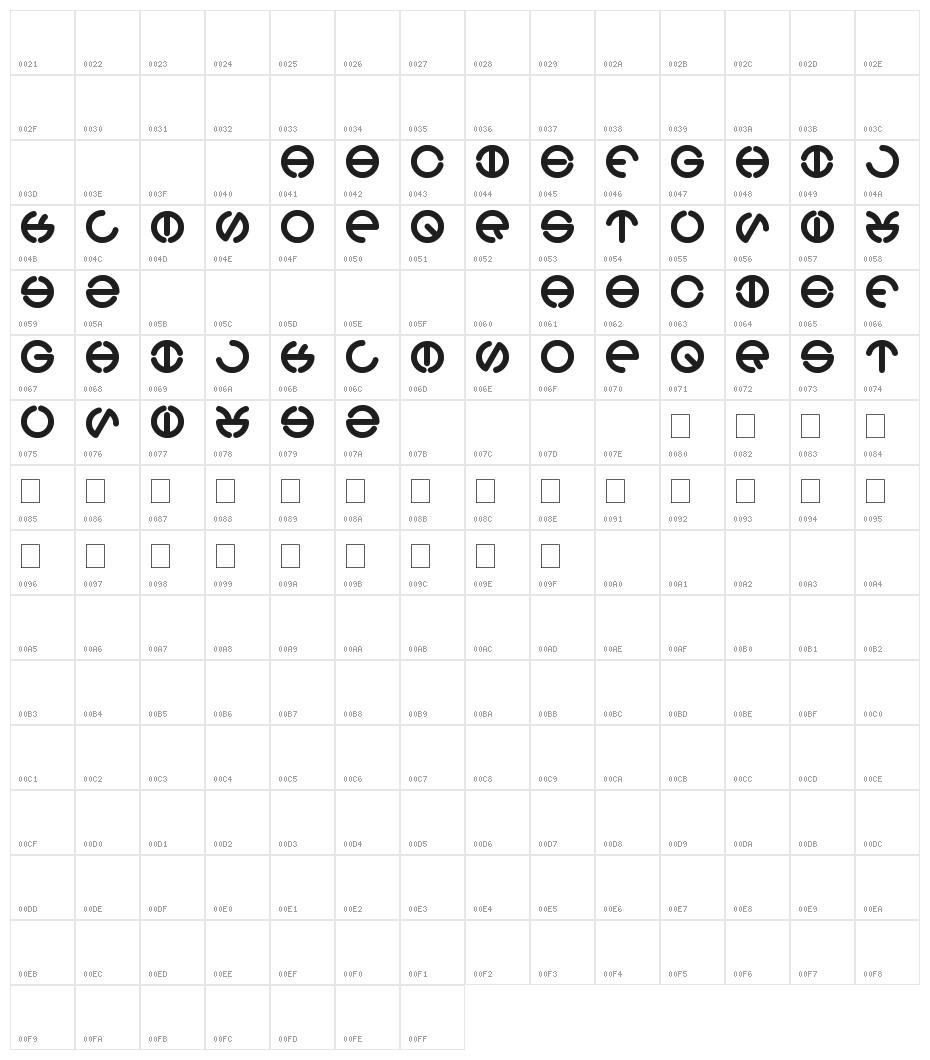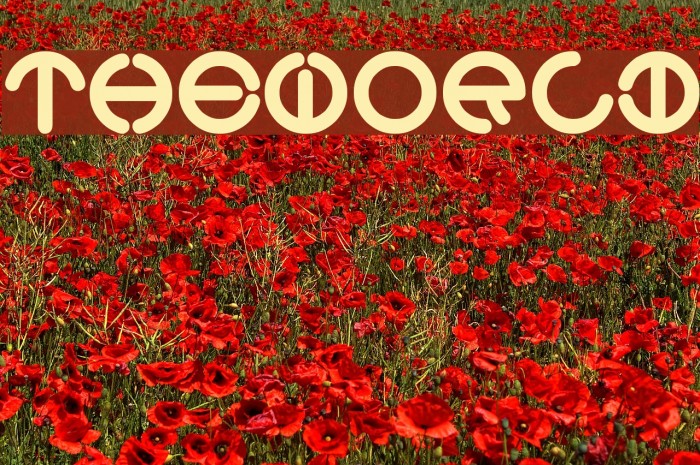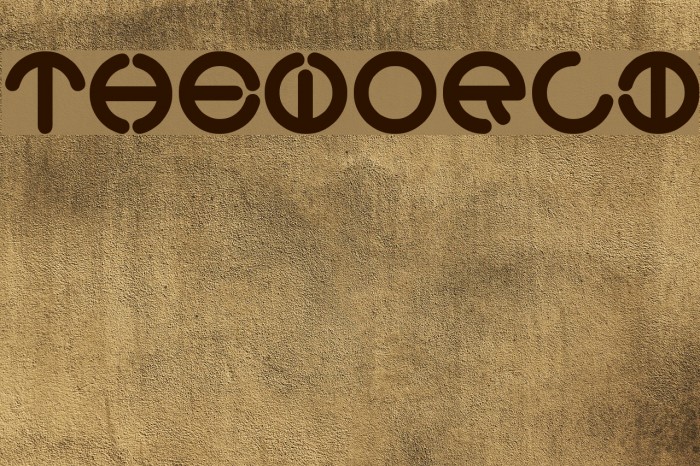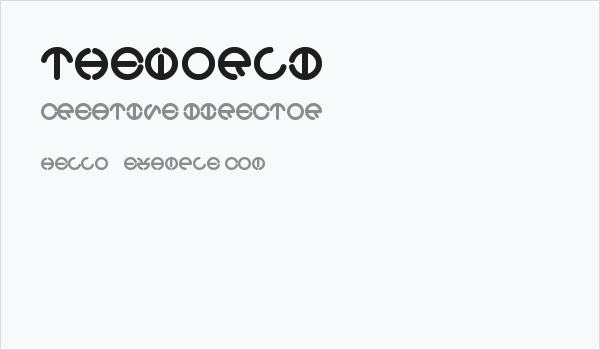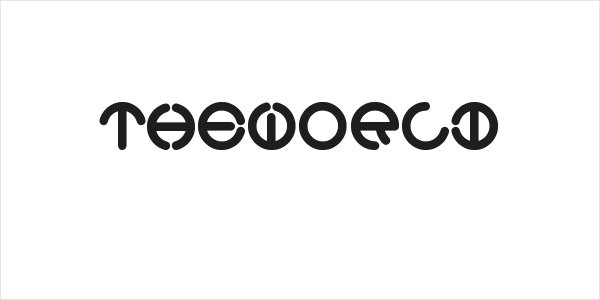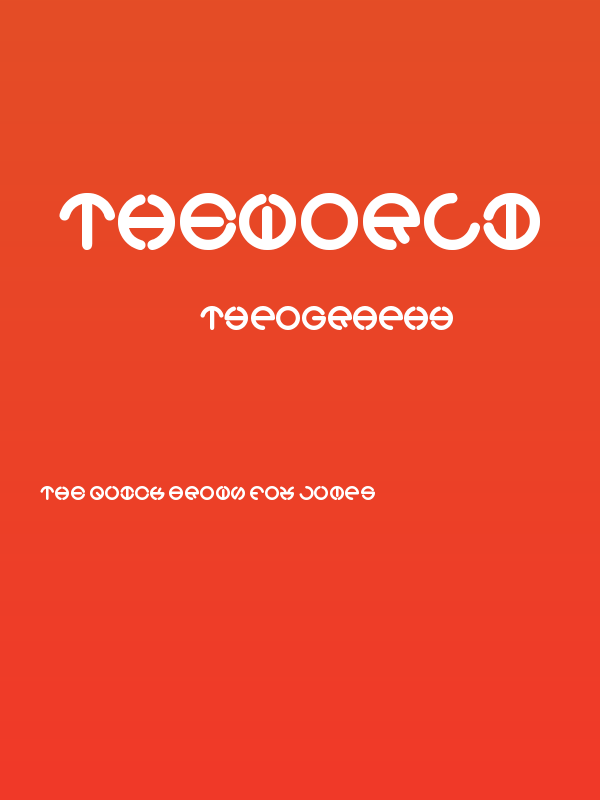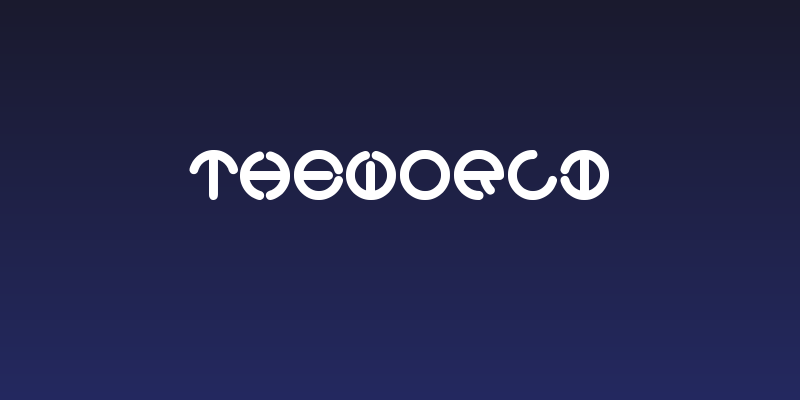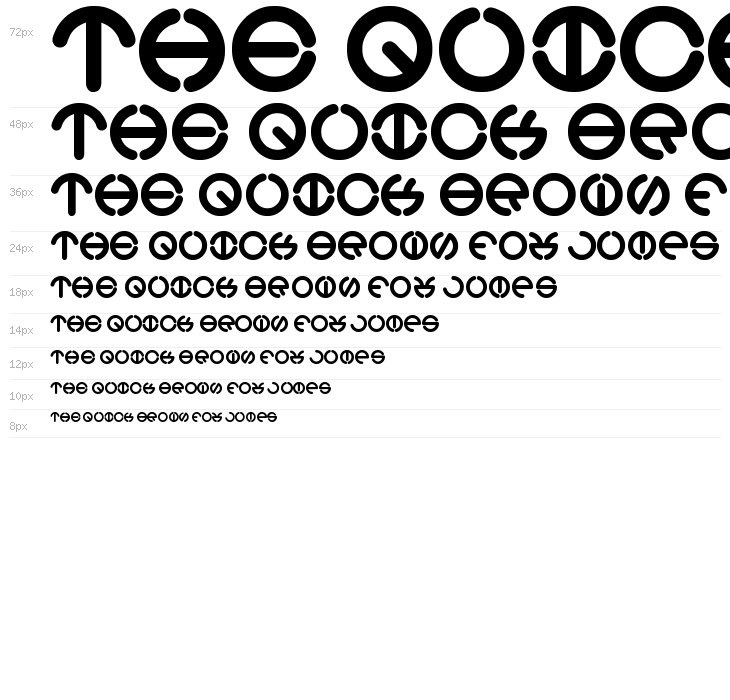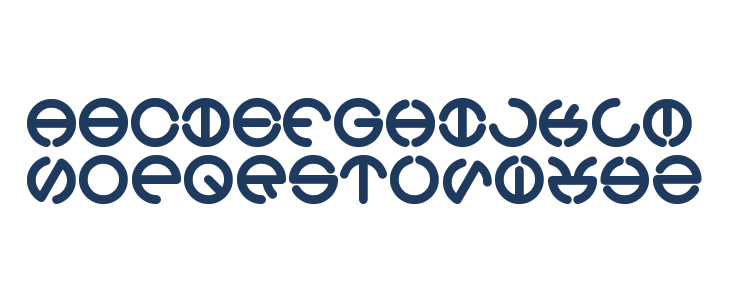
theworld Font
theworld Description
This font features a highly geometric and symmetrical design, characterized by its circular and semi-circular elements that create a futuristic and abstract appearance. Each character is crafted with precision, incorporating consistent curves and lines that form a cohesive visual language. The font's unique style is achieved through the use of negative space, which adds to its modern and innovative look. The bold strokes and uniform thickness contribute to its strong presence, making it ideal for eye-catching displays and creative projects.
| Overall Style | Futuristic, Modern |
| Proposed Projects | Ideal for sci-fi themed designs, technology branding, innovative product packaging, and modern art installations. |